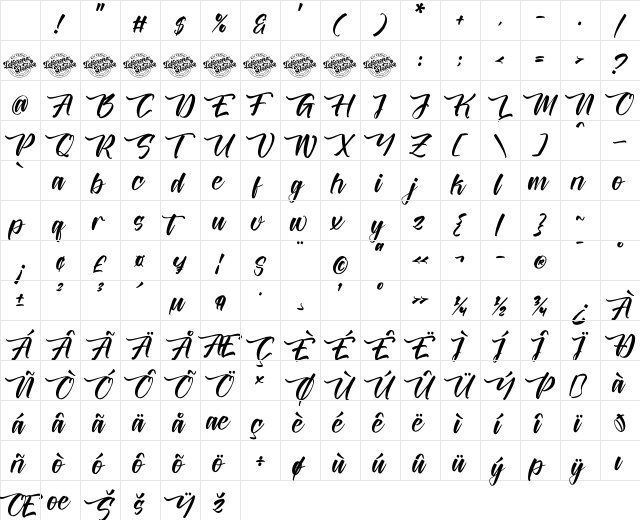
Battrich Delighta DEMO VERSION is a composed and adaptable typeface that performs quietly and consistently across a wide range of design contexts. Its slender proportions lend an understated elegance to any composition.